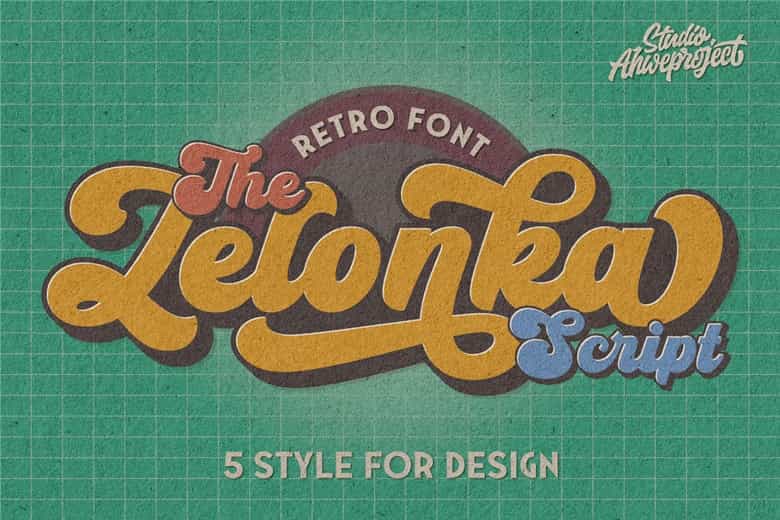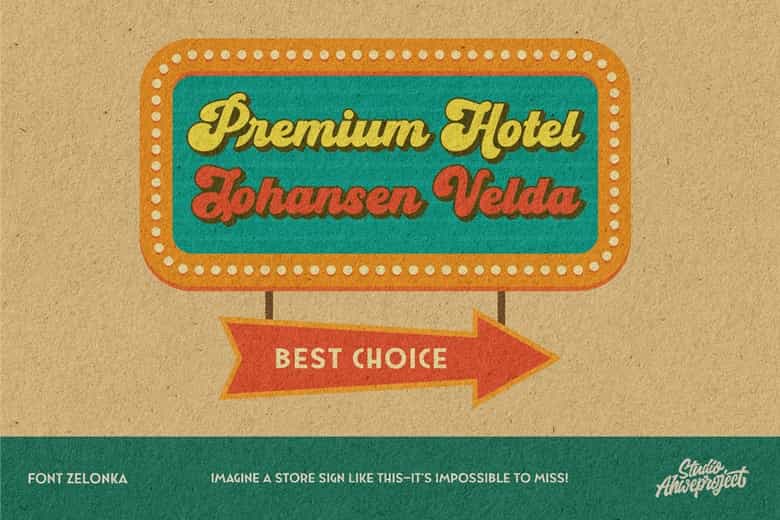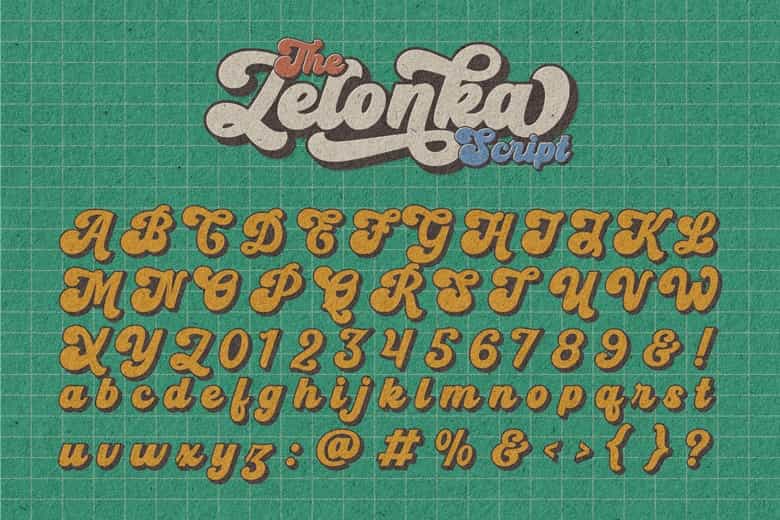
Zelonka is a modern bold retro script typeface with a vintage charm. Perfectly designed to bring a groovy, nostalgic vibe to your projects, this font features smooth curves, vibrant letterforms, and dynamic swashes. With 5 unique styles to choose from, it’s ideal for posters, logos, branding, packaging, headlines, and more.